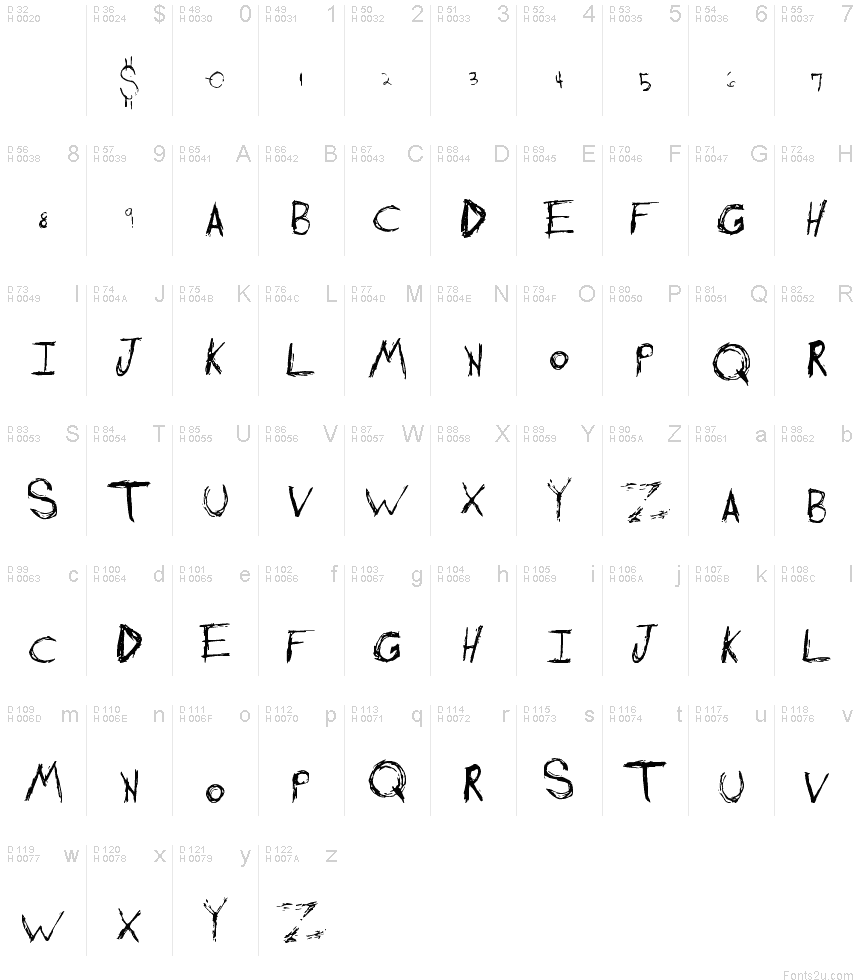
Shredding Harder by Xerographer Fonts is a free trash script with a frantic, cut-up silhouette and wildly uneven stroke weight. Its tall, splintered letters mix dry scratches with loose loops, giving the alphabet the raw look of marker lines dragged across damaged paper.
Punk, metal, and horror themes make a convincing home for this lettering in concert posters, album artwork, and title cards, where the ragged edges can echo distressed photography or collage. Its rough marks also suit skate merchandise and underground event graphics as part of the artwork.